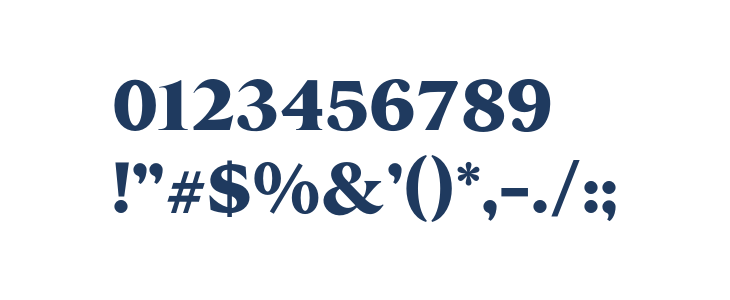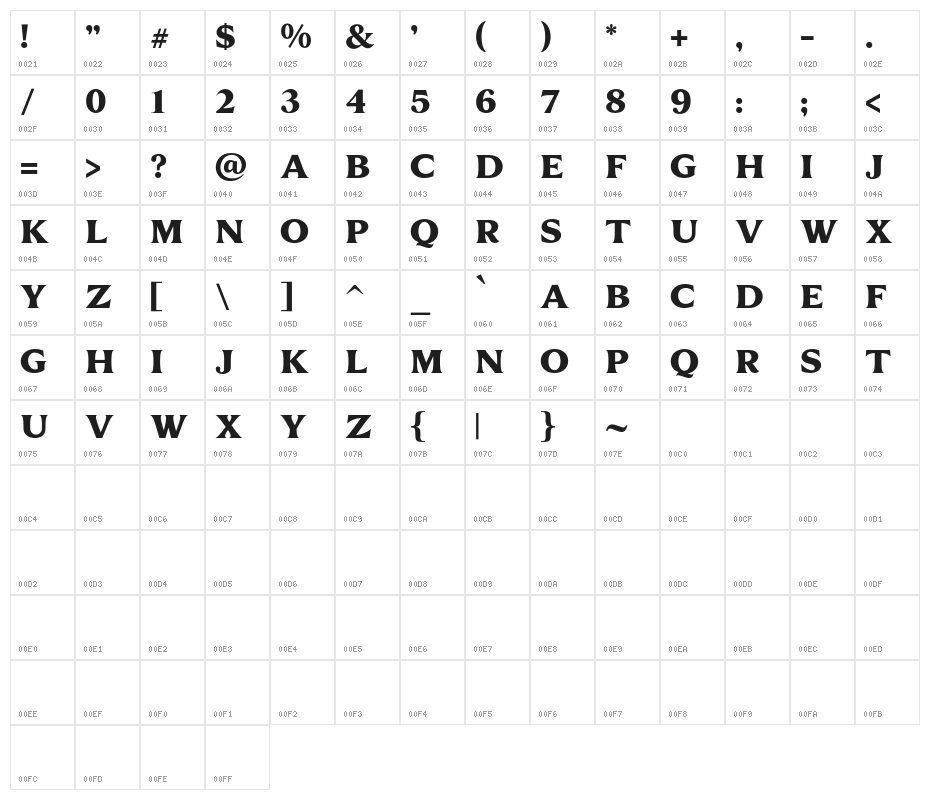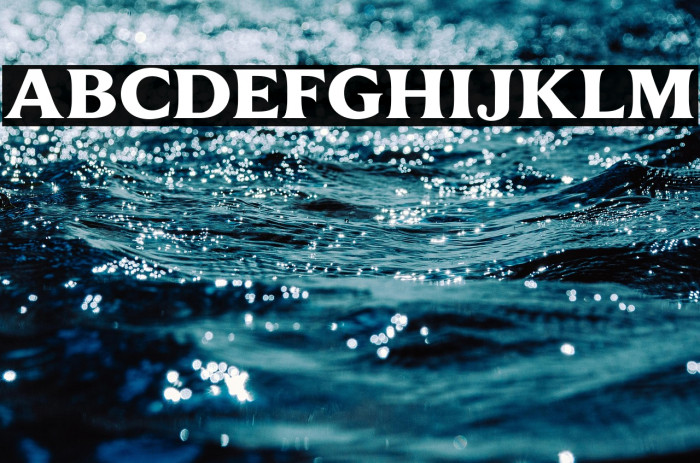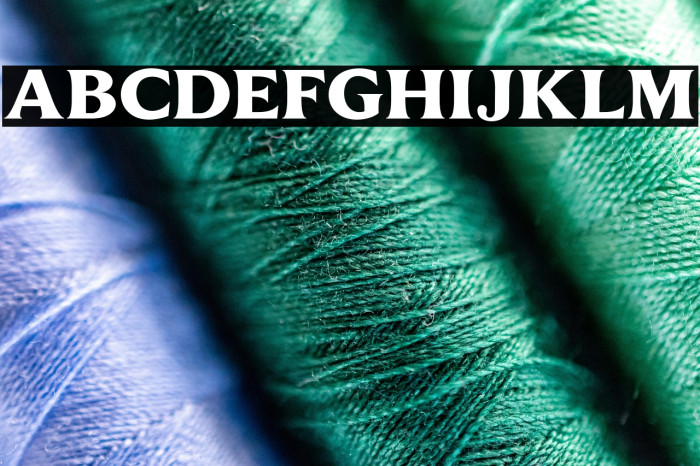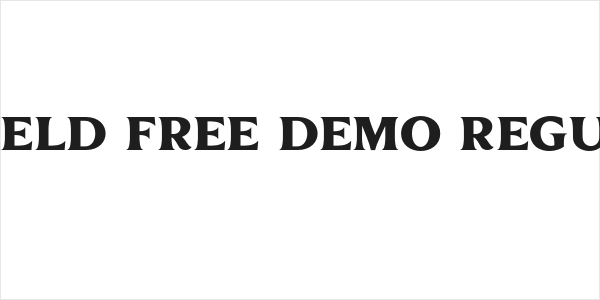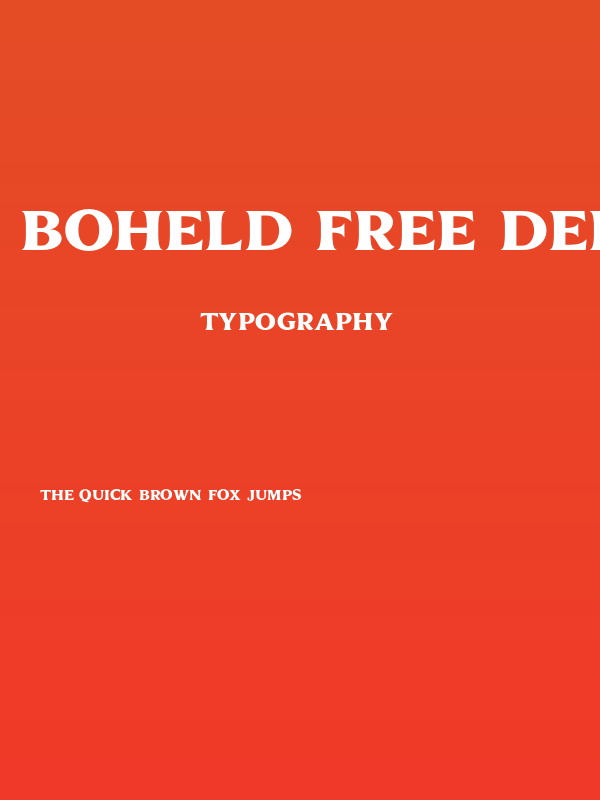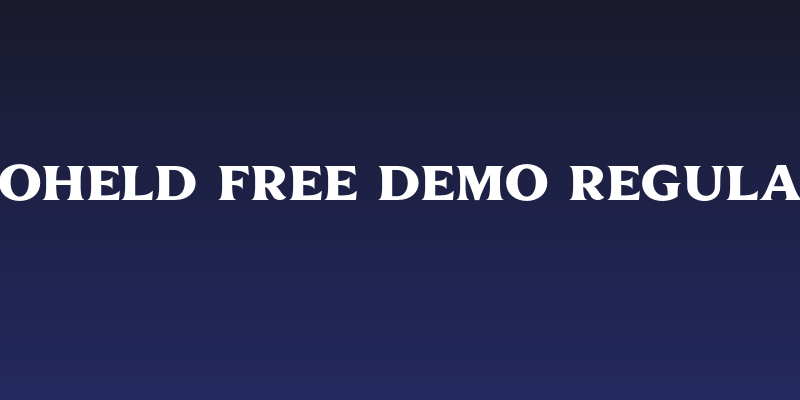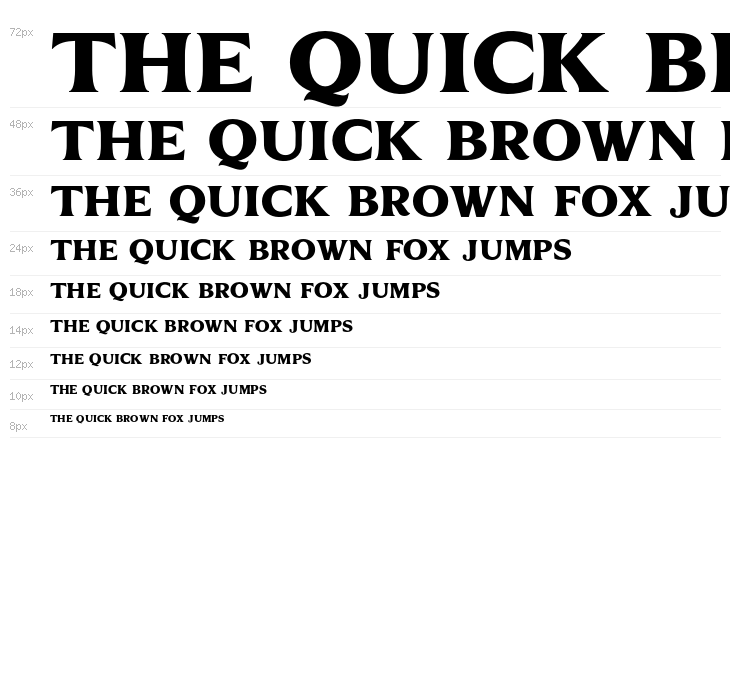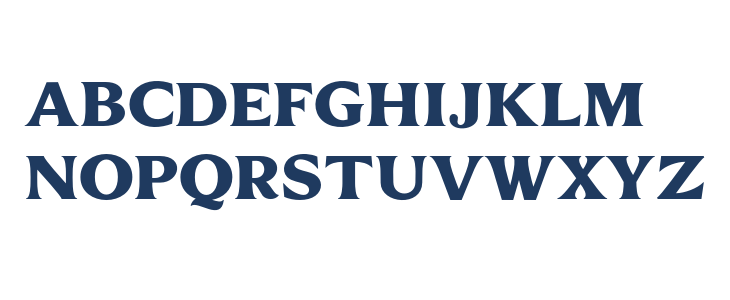
This font features a bold and commanding presence with its strong, thick strokes and pronounced serifs. The uppercase letters are robust and well-defined, making them ideal for impactful headlines. The numerals are equally bold, ensuring clarity and emphasis. Special characters are designed with the same attention to detail, maintaining the font's overall cohesive look. Its classic serif style exudes a sense of tradition and reliability, while the bold weight adds a modern twist, making it versatile for various design needs.
| Proposed Projects | This font is perfect for branding projects, editorial headlines, poster designs, and any application requiring a strong visual impact. |